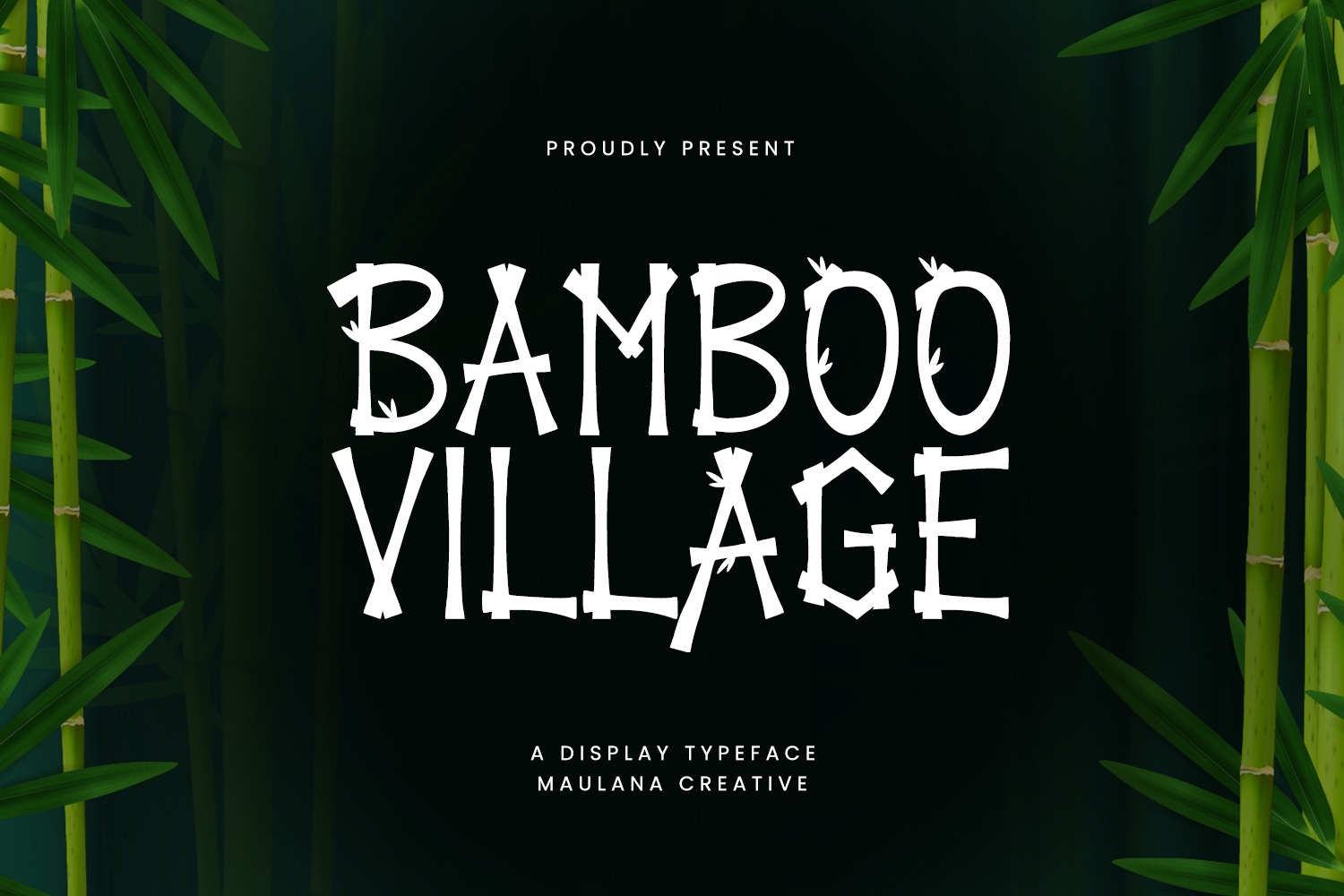
Bamboo Village Display Font
Bamboo Village is a decorative display font. Bold stroke, fun character with a bit of ligatures and alternates. To give you an extra creative work. Bamboo Village font support multilingual more than 100+ language. This font is good for logo design, Social media, Movie Titles, Books Titles, a short text even a long text letter and good for your secondary text font with script or serif. Make a stunning work with Bamboo Village font.